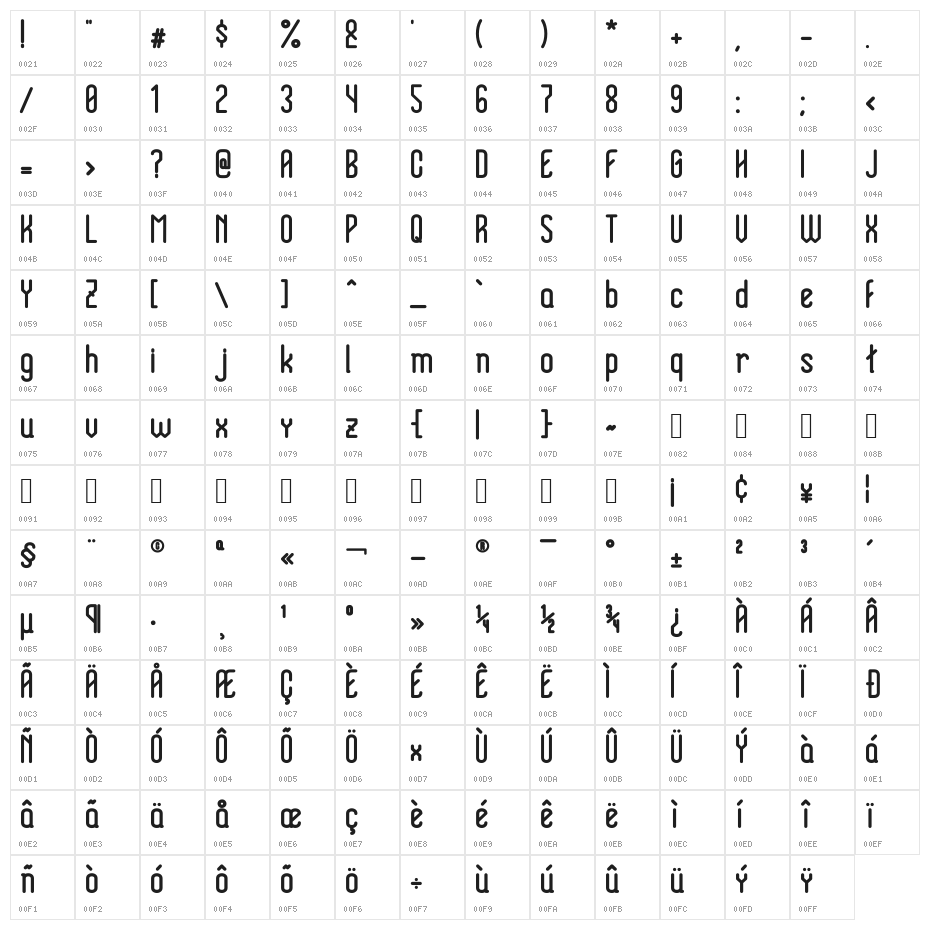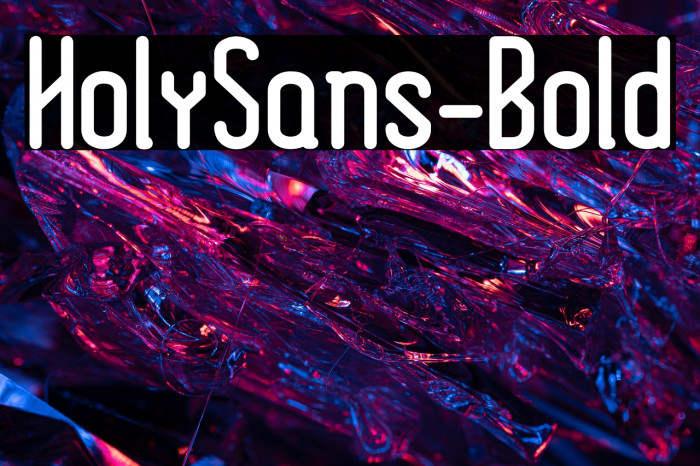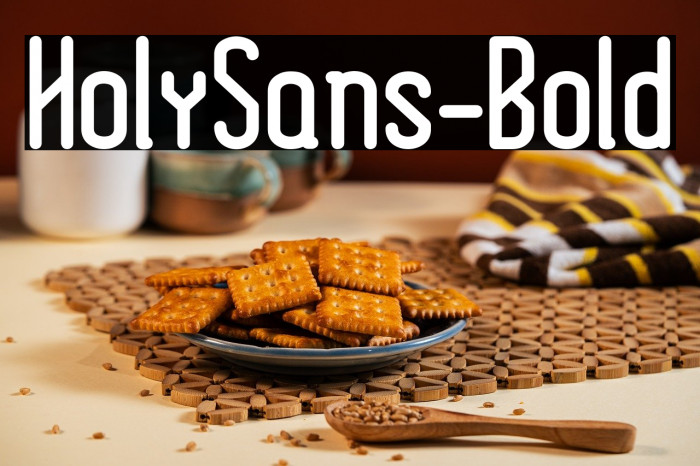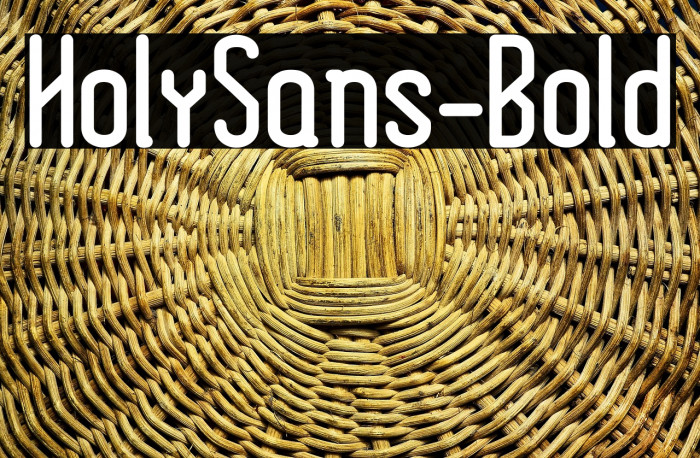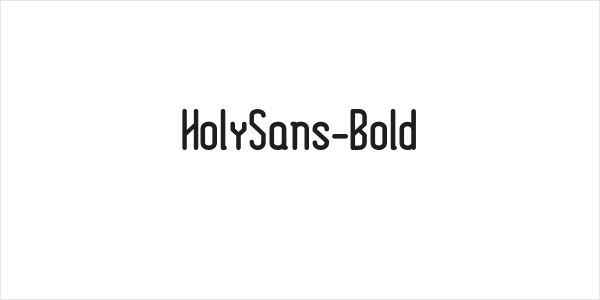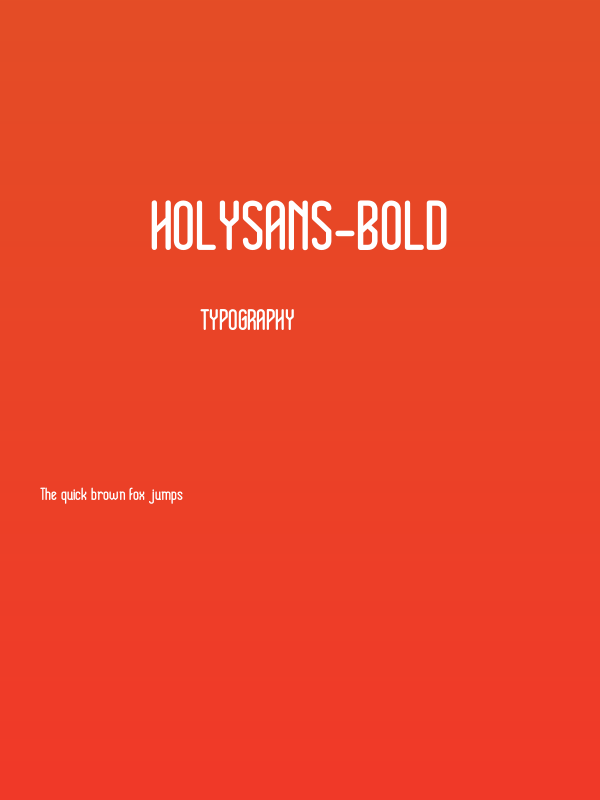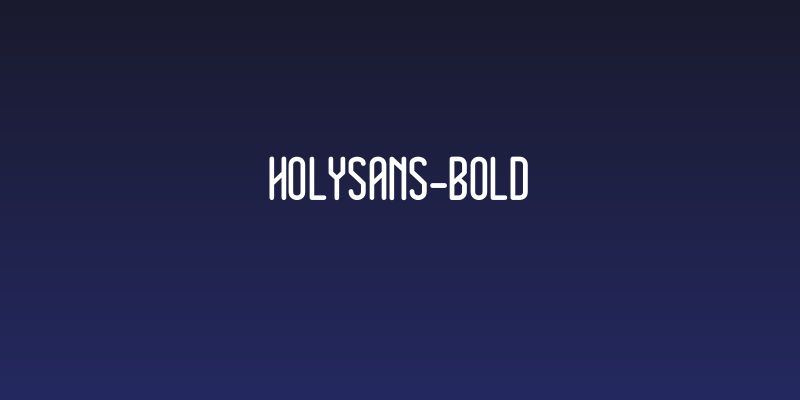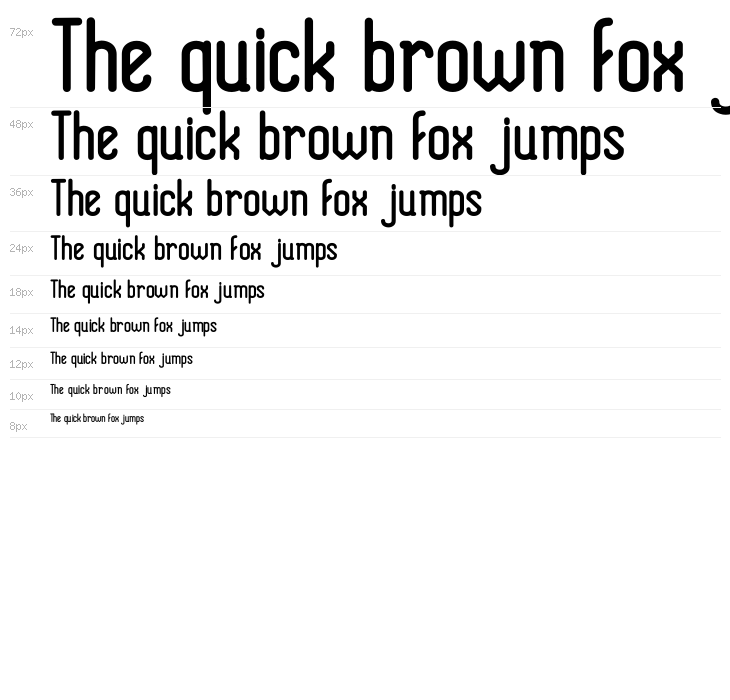
HolySans-Bold Font
HolySans-Bold Description
This font features a bold, rounded sans-serif style with a modern and clean appearance. The characters are uniformly thick, providing a consistent and cohesive look across both uppercase and lowercase letters. The rounded edges give it a friendly and approachable feel, making it suitable for a variety of design contexts. The numerals and special characters maintain the same rounded and bold characteristics, ensuring readability and visual harmony. The overall design is simple yet impactful, making it versatile for both digital and print media.